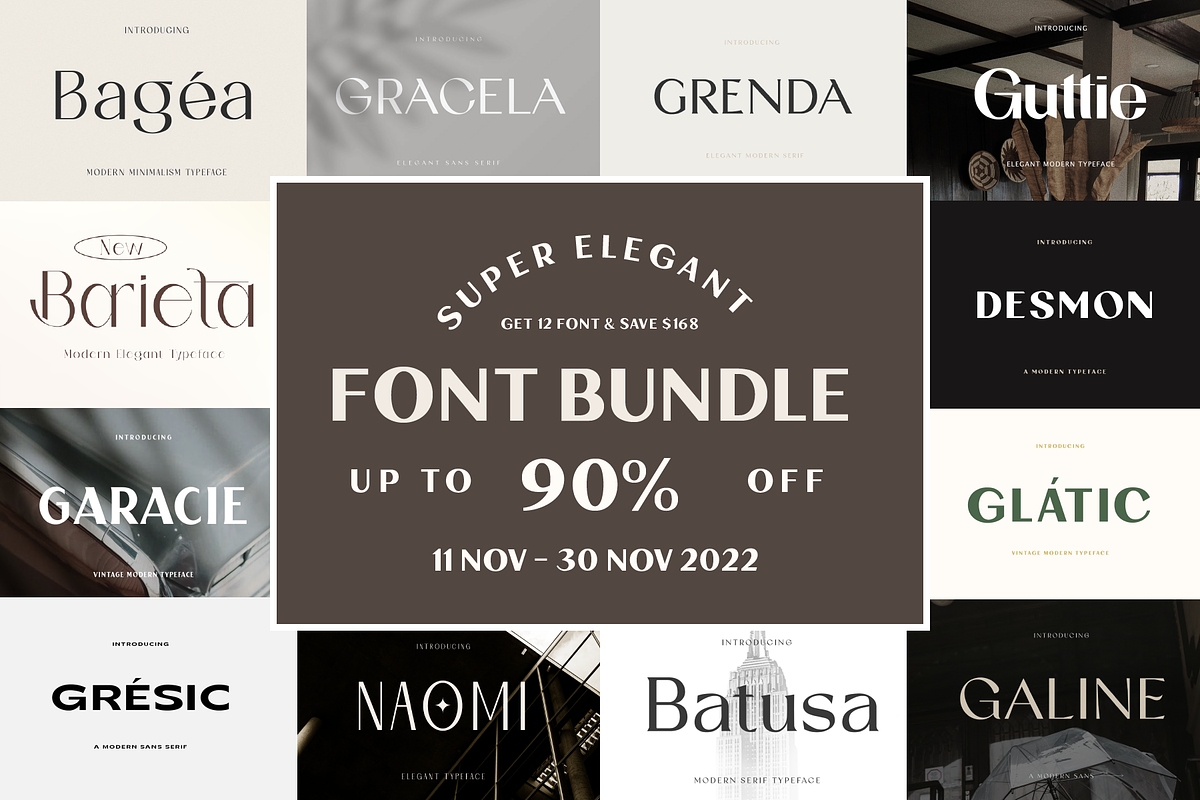
Elegant Modern Bundle Fonts Free Download
Please note, you must purchase this font for commercial use. However, you can easily download Elegant Modern Bundle Fonts Free Download for personal use and testing purposes. Elegant Modern Bundle Fonts is a carefully curated collection of sleek, sophisticated fonts designed to bring a contemporary and refined touch to your designs. This bundle includes a mix of modern serifs, scripts, and sans-serifs that work perfectly for branding, invitations, logos, and other high-end projects. Whether you need clean, minimalist typography or elegant script styles, this bundle offers the versatility and elegance you need for both digital and print designs. Download Elegant Modern Bundle Fonts Free Download today and explore its potential before opting for a commercial license.